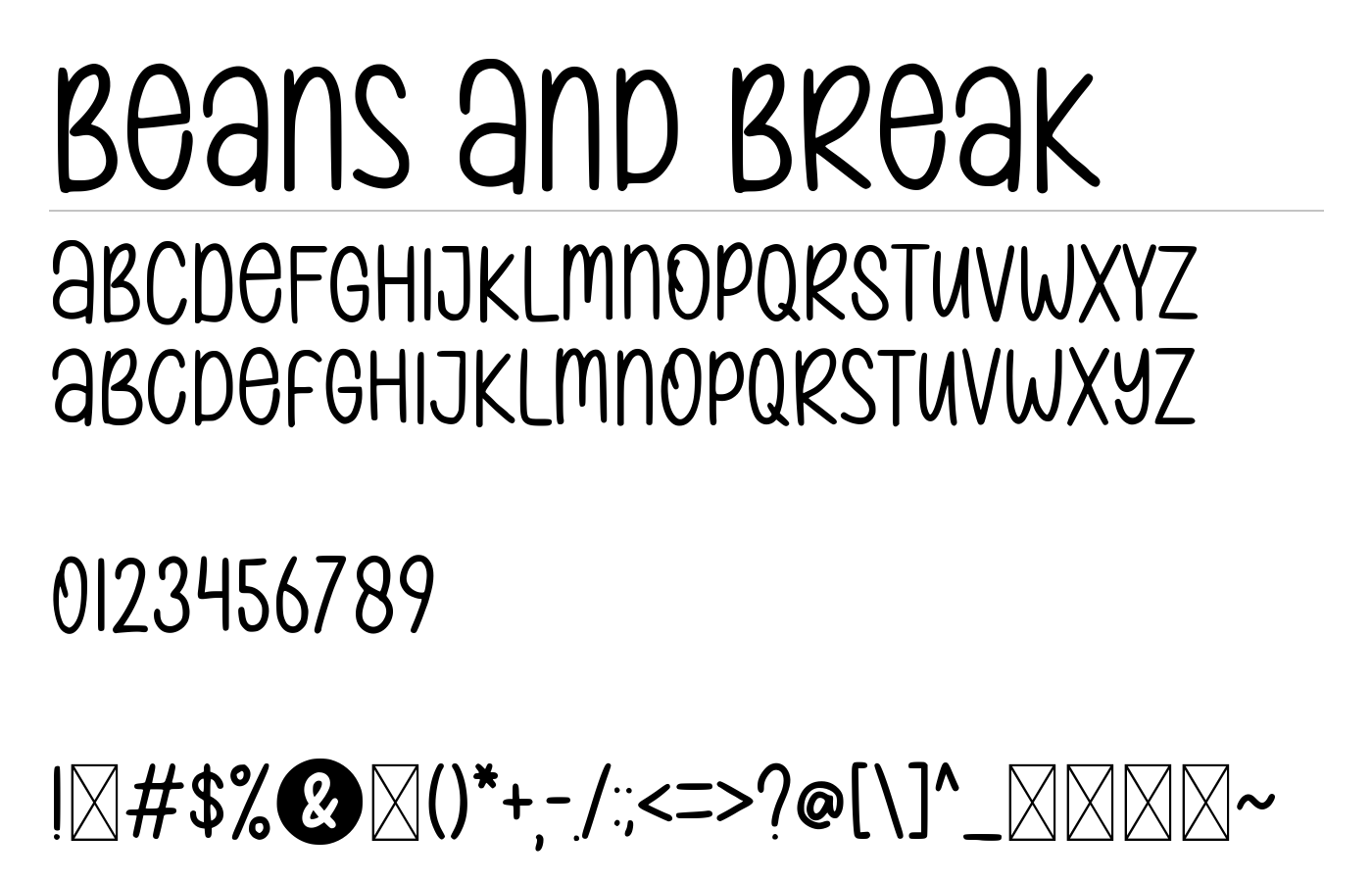
Beans And Break is a playful and friendly sans serif font with a hand-drawn, casual feel. Its tall, narrow letterforms and consistent stroke weight create a light and airy impression, making it perfect for informal, approachable designs like children's books, fun branding, or quirky headlines. This font adds a warm, personal touch without sacrificing readability, ideal for projects that want to feel inviting and cheerful.
Beans And Break Font
About Beans And Break Font